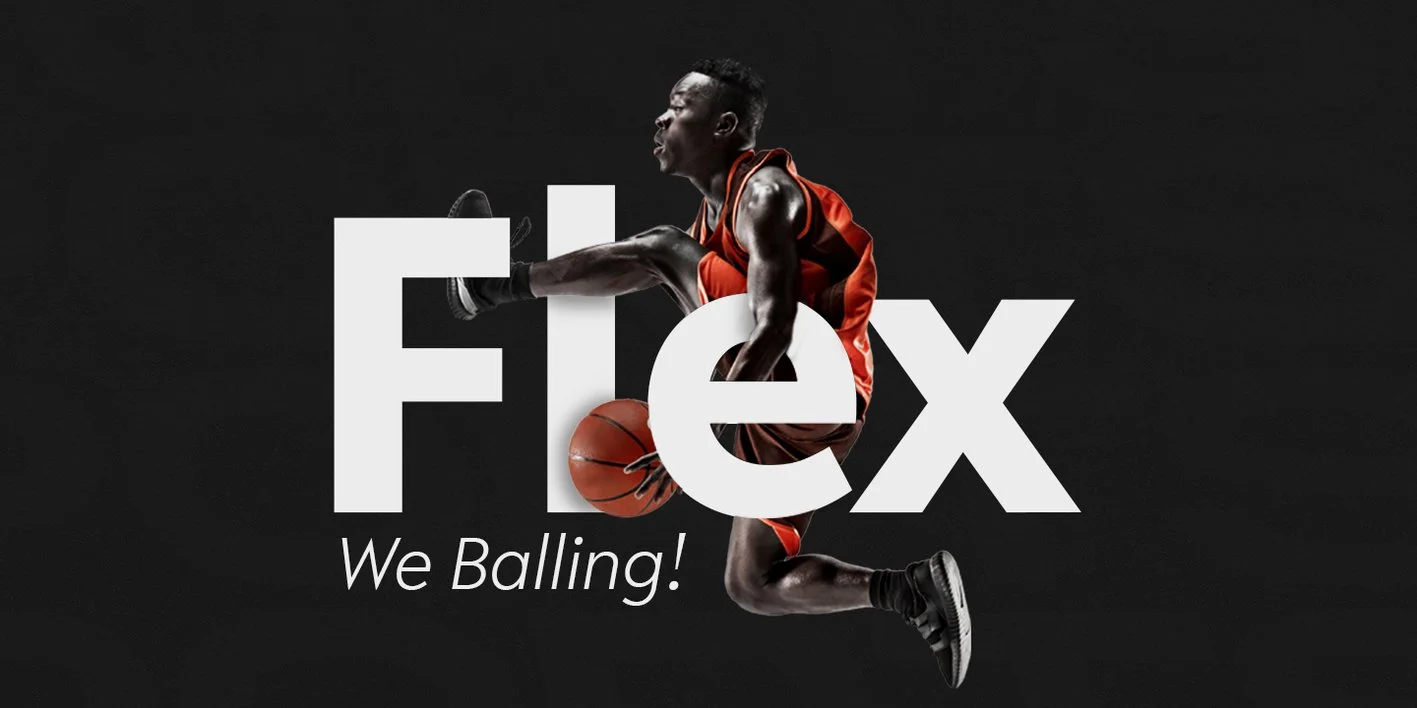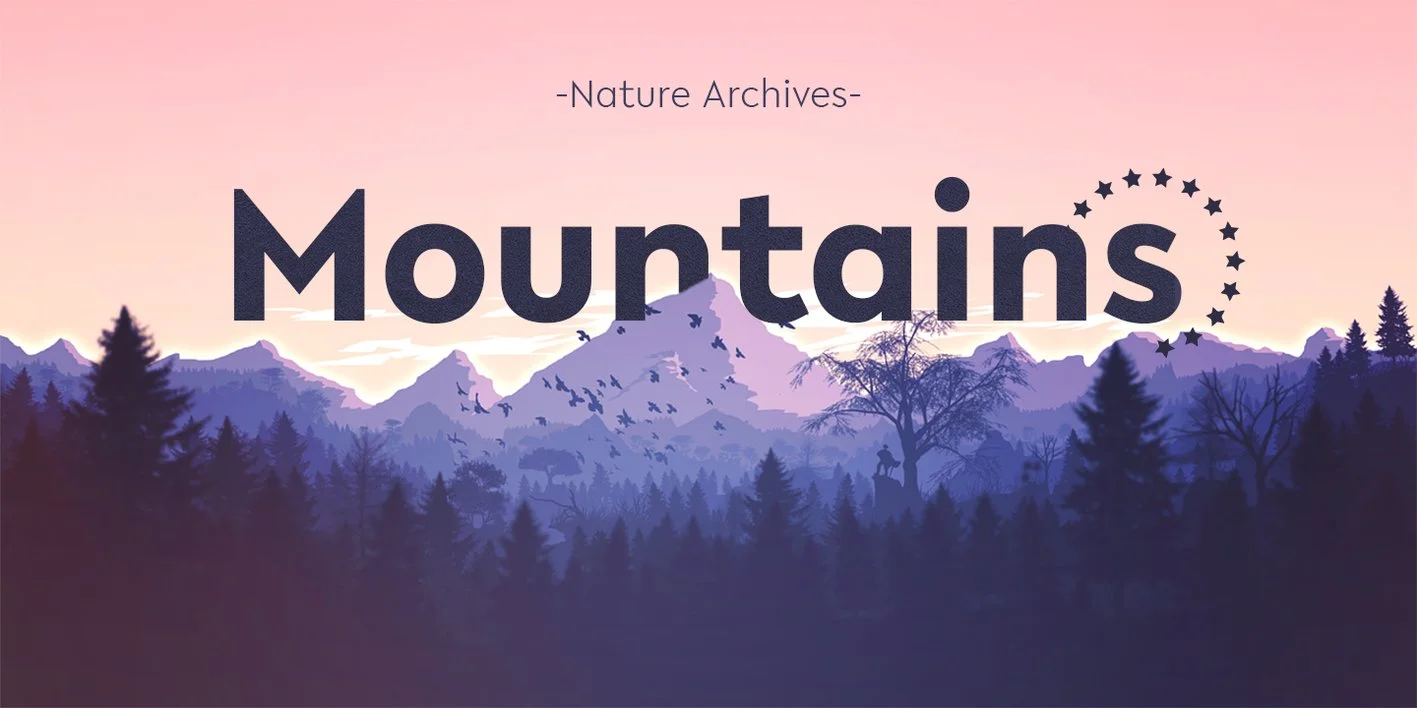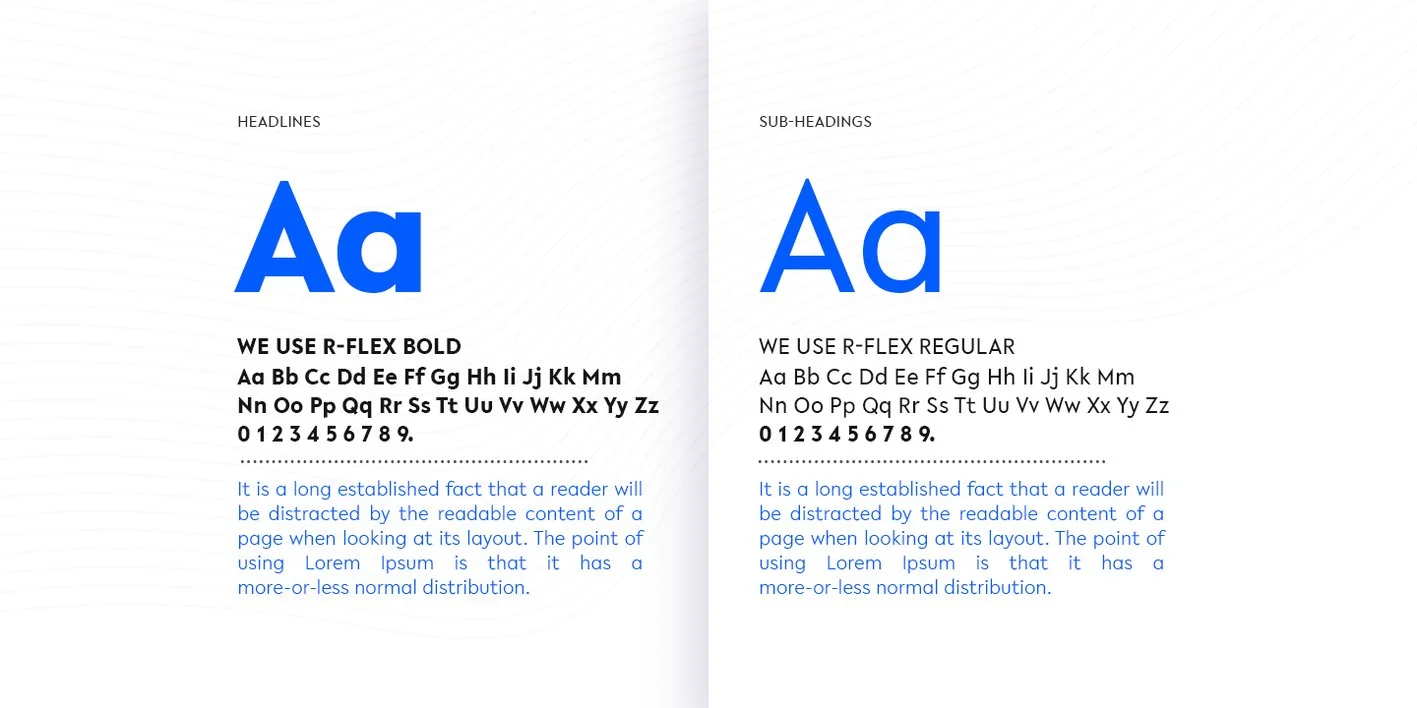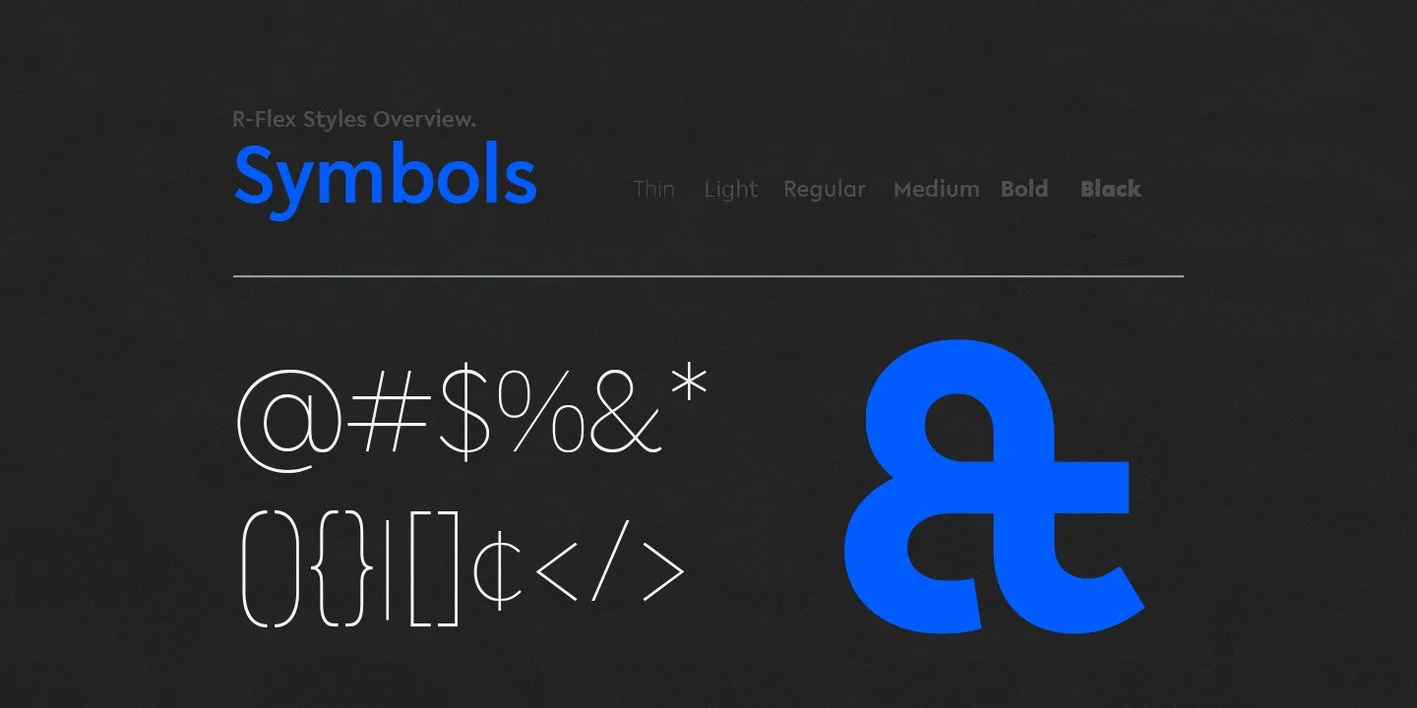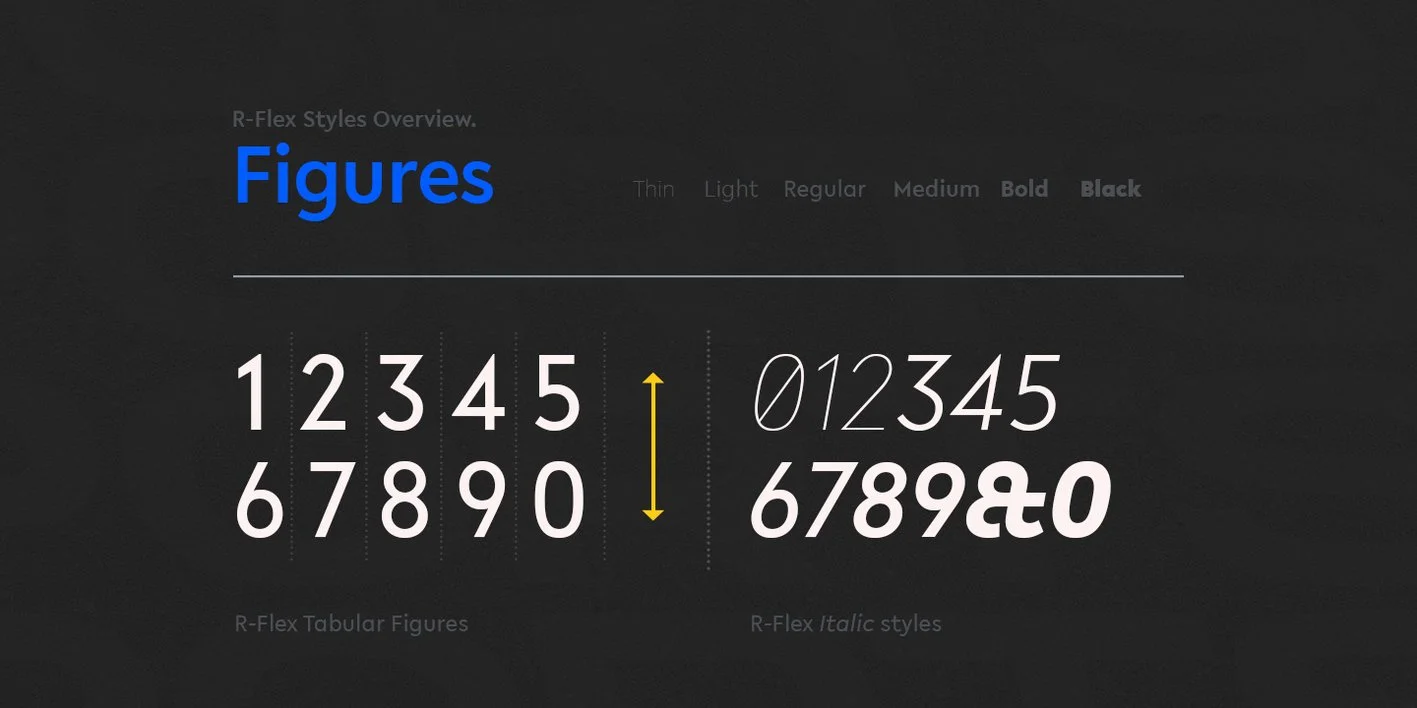
R-Flex Font
A good typeface communicates tone before a single word is read. R-Flex achieves this through distinctive character without sacrificing readability. The typeface brings a versatile sensibility to a broad range of creative disciplines, with consistent type colour across continuous text that holds up whether the work is print-first or screen-first.
In practice, R-Flex proves particularly effective for social media graphics, annual reports, advertising campaigns, logo design, poster creation. Designers reaching for it find that the type decisions feel resolved rather than laboured — a useful quality when client timelines are tight.
The range of applications extends to product labels, web design, signage systems, environmental graphics. That breadth is deliberate: the proportions and spacing were stress-tested across a wide range of mock briefs before the typeface was finalised.
Pairing R-Flex with a contrasting serif or a neutral grotesque gives mixed-format layouts a clear visual grammar without requiring constant size adjustments to establish hierarchy.
Independent studios handling packaging and editorial work find R-Flex a reliable choice for projects that demand both personality and restraint. The design avoids the self-conscious quirkiness that dates quickly, settling instead for considered distinctiveness that holds up over time.